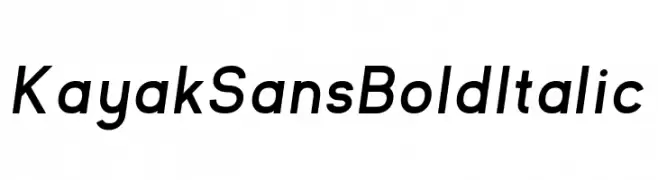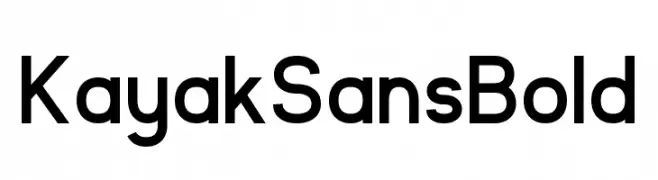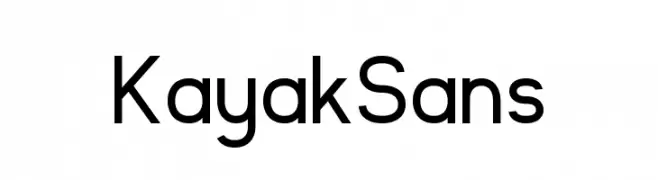
A modern, clean sans-serif font with balanced letterforms and consistent stroke widths.
A bold, modern sans-serif font with clean lines and uniform strokes.
A bold, modern sans-serif font with an italic style, perfect for impactful designs.
A bold, modern sans-serif font with clean lines and excellent readability.
A modern, bold, and italic sans-serif font with a clean and dynamic style.
A modern, condensed sans-serif font with excellent readability and space efficiency.
A bold, condensed sans-serif font with strong, uniform strokes and minimal contrast.
A bold, condensed, and italicized sans-serif font with a modern and dynamic style.
A modern, bold, and condensed sans-serif typeface with excellent readability.
A modern, bold, italic, and condensed sans-serif font with clean lines.